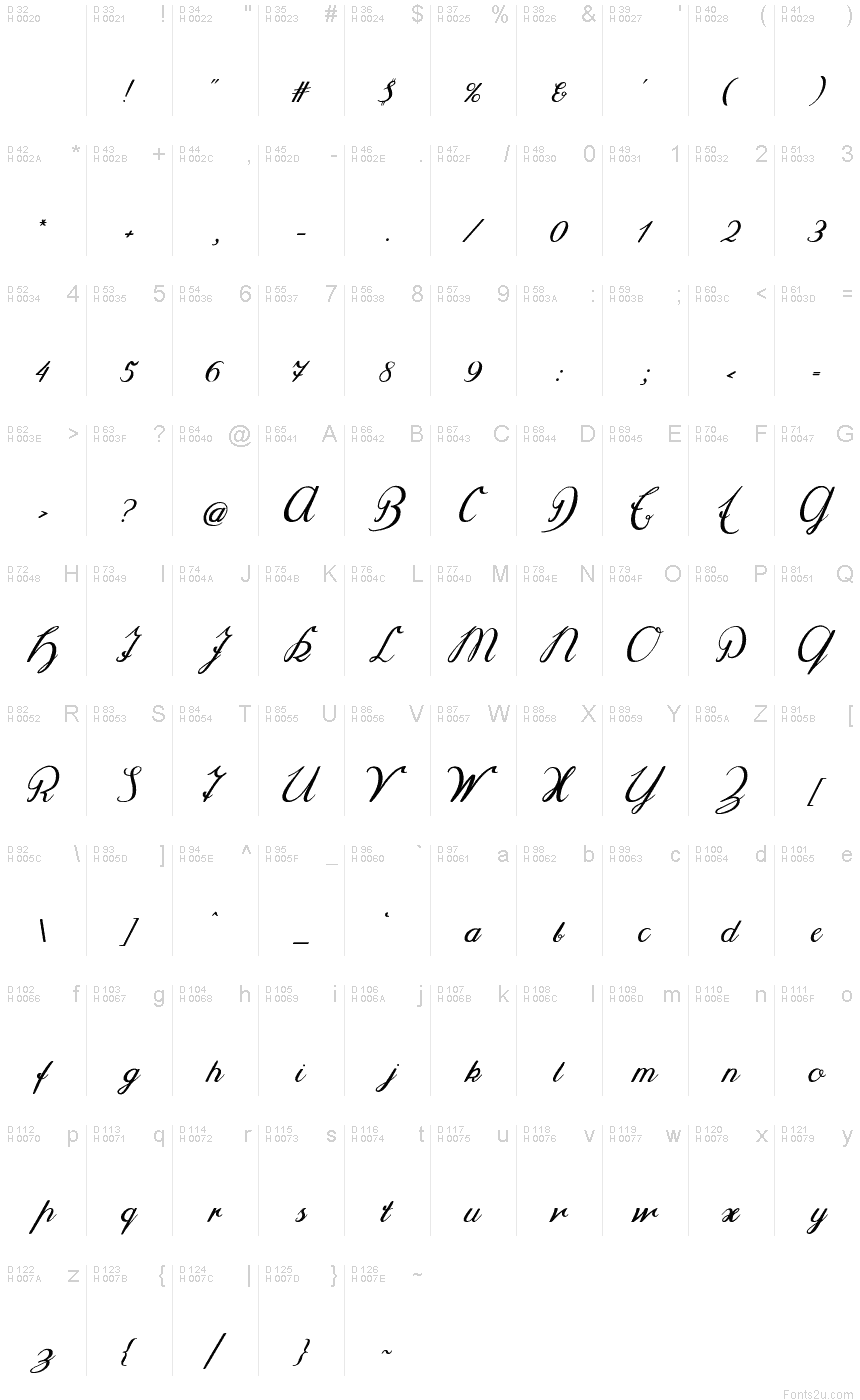
Selya by Magique Fonts is a free calligraphic script with sweeping movement and pronounced thick-thin contrast. Its tall, narrow letters rise into extravagant loops, then drop into long curves that give the line a formal, airy, theatrical silhouette. Fine hairlines and broad downstrokes make the writing look as if it were drawn with a sharply pointed pen moving at a confident, unhurried pace.
As an ornate signature or ceremonial title, it suits wedding invitations, fragrance packaging, and fashion branding, where the extended flourishes can become part of the decoration. It also gives magazine covers and bridal editorials a distinctly couture voice.
Selya